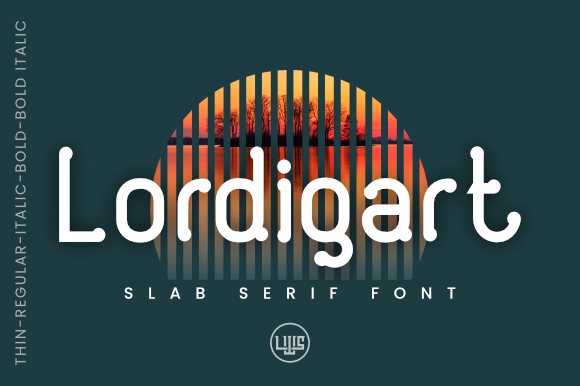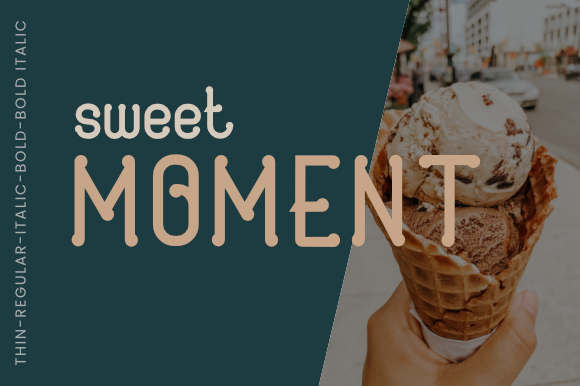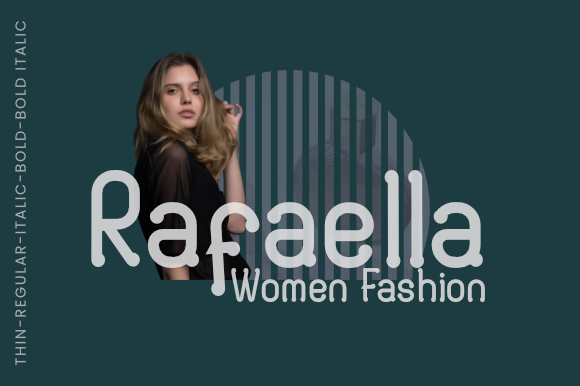
Lordigart
Lordigart: A Cool, Neat, and Modern-Styled Slab Serif Font
Lordigart is a distinctive slab serif font that combines coolness with a neat and modern aesthetic. This versatile typeface is ideal for a wide range of design projects, particularly those requiring a futuristic touch.
Key Features of Lordigart
• Cool Design: Features a trendy and appealing appearance that resonates with contemporary design trends.
• Neat Aesthetic: Offers a clean and organized look suitable for professional applications.
• Modern Styling: Incorporates current design elements for a fresh, up-to-date look.
• Slab Serif Structure: Maintains the characteristic thick, rectangular serifs typical of slab serif fonts.
• Futuristic Touch: Adds a forward-looking element to designs, perfect for innovative projects.
• Versatile Application: Suitable for a wide range of projects, from web design to print media.
Ideal Uses for Lordigart
Lordigart’s unique characteristics make it particularly well-suited for:
• Web designs and digital interfaces
• Business cards and corporate stationery
• Tech-related branding and logo design
• Futuristic-themed posters and advertisements
• Modern packaging and product design
• App interfaces and user experience design
When incorporating Lordigart into your designs, consider the following tips:
• Use for both headlines and short blocks of text to showcase its cool and modern style
• Experiment with different sizes to highlight the font’s unique details
• Consider pairing with simpler sans-serif fonts for body text to maintain a contemporary look
• Take advantage of its futuristic touch in projects that require an innovative feel
Lordigart is an excellent choice for designers looking to add a cool, neat, and modern slab serif font to their typographic toolkit. Its ability to bring a futuristic touch to various design projects makes it stand out in the world of typography. Whether you’re working on logo designs for tech companies, creating layouts for innovative web interfaces, or developing content that requires a contemporary and forward-looking aesthetic, Lordigart offers the perfect blend of style and modernity.
Add Lordigart to your creative projects and explore how it can elevate your designs with its cool, neat, and modern style. From sleek business cards to cutting-edge web designs, this font provides the tools to create impactful and memorable typography that resonates with audiences seeking a futuristic and professional look. It’s versatile enough to be used in various contexts, from vintage-inspired designs with a modern twist to playful layouts that need a touch of sophistication.
Whether you’re creating a magical and mysterious atmosphere with a futuristic edge or aiming for a more thoughtful and introspective mood in your designs, Lordigart can adapt to your needs. Its flexibility allows it to work well in both modern, minimalist projects and tech-themed designs that require a clean and contemporary look. For those looking to add a touch of the future with a professional feel, this font can even complement traditional designs with a unique, modern twist.